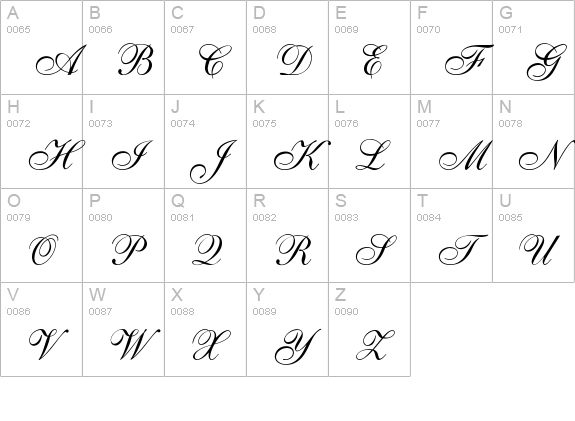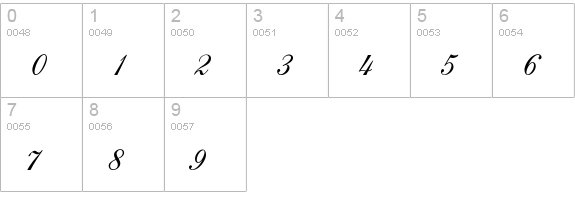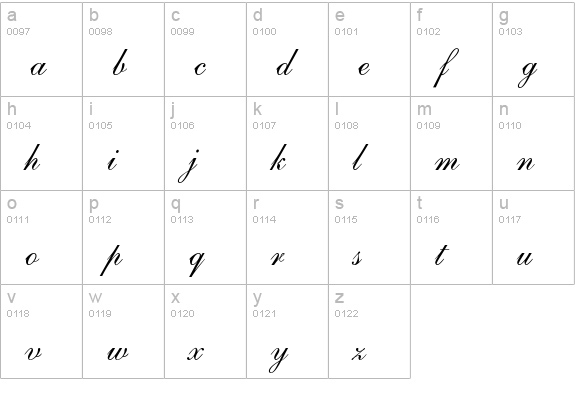
ALS Script Font Details
Introducing ALS Script font, a versatile and elegant typeface that brings a touch of sophistication to any project. This beautifully crafted font features flowing lines and smooth curves, making it perfect for adding a personal and artistic flair to your designs. With its classic yet modern aesthetic, ALS Script font is ideal for a wide range of applications, from wedding invitations to branding materials. The best part? ALS Script font is completely free to download at FontsMarket.com, making it accessible to designers of all levels. Whether you're working on a professional project or simply looking to add a unique touch to your personal creations, this font is sure to impress. Don't miss out on the opportunity to enhance your designs with the beauty and elegance of ALS Script font – download it today and let your creativity shine!